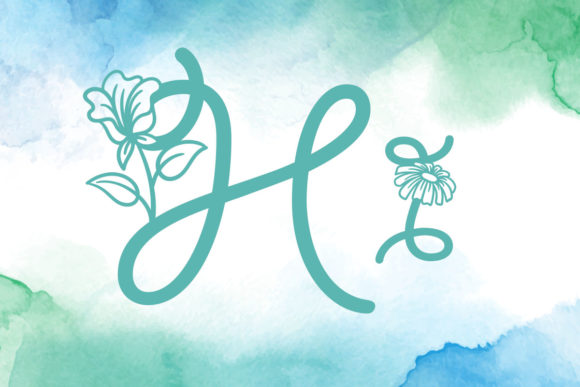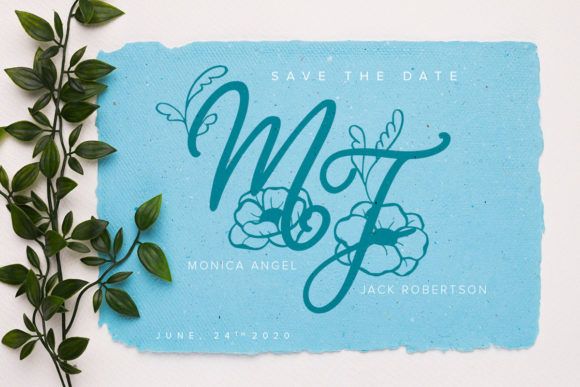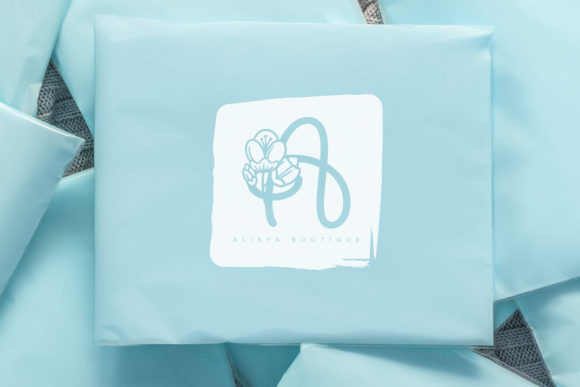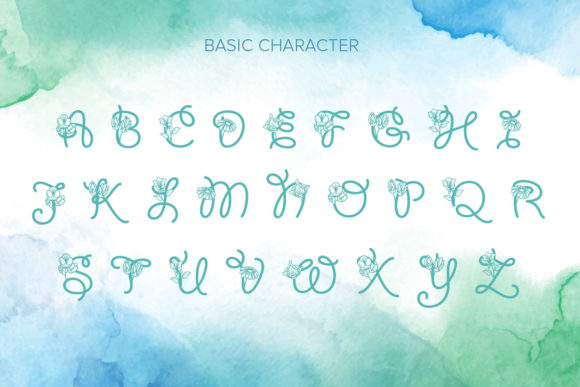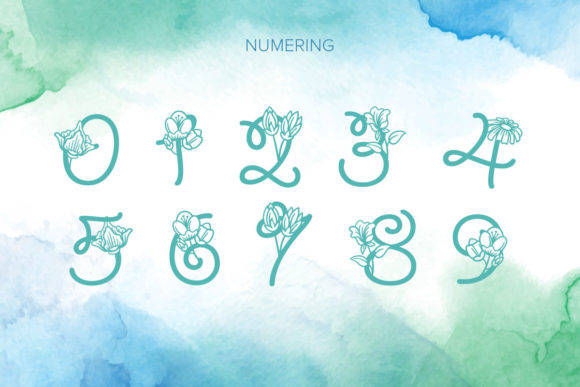
Introduction to Joyful Monogram Font
Have you ever been brainstorming ideas for a creative project, and suddenly, a spark of inspiration hits you? Maybe it was a beautiful wedding invitation you stumbled upon, or a charming social media post that caught your eye. Whatever it was, it left you feeling inspired and eager to create something special. For designers like you, finding the right design resource can make all the difference in bringing your vision to life.
That’s where the Joyful Monogram Font comes in – a lovely decorative font featuring flower monograms that’s sure to add a touch of whimsy and elegance to any project. With its high-quality design and transparent background, this font is perfect for creating gorgeous wedding invitations, beautiful stationery art, eye-catching social media posts, and cute greeting cards.
- High-quality design: The Joyful Monogram Font is designed with precision and care, ensuring a crisp and clear appearance in any creative project.
- Transparent background: This font allows for seamless integration with any background, making it an ideal design resource for various creative projects.
- Customizable: The Joyful Monogram Font can be easily customized to fit the specific needs of your creative project, allowing for endless possibilities and unique designs.
- High-resolution design: The font is designed at a high resolution, ensuring that it remains clear and legible even when scaled up or down.
- Perfect for creative projects: The Joyful Monogram Font is ideal for use in wedding invitations, party decorations, and other creative projects where a touch of personality is desired.
Honest Review: Joyful Monogram Font
I recently stumbled upon the Joyful Monogram Font, and I must say it’s a delightful addition to any design project. The high-quality design and transparent background make it a great resource for creatives.
Here are some things that work well about this font:
- It’s perfect for creating custom monograms, logos, or titles for your creative project.
- The font’s playful and whimsical feel makes it ideal for projects that require a touch of personality.
- It’s highly customizable, allowing you to experiment with different colors, sizes, and layouts.
- The font may not be suitable for formal or professional projects, as its playful nature may not be taken seriously.
- The number of glyphs may be limited, which could be a problem for projects that require a wide range of characters.
Overall, I think the Joyful Monogram Font is a great design resource for creative projects that require a touch of personality and whimsy. While it may not be suitable for all projects, it’s definitely worth checking out if you’re looking for a high-quality, free font that can add some joy to your design work. ⚠️
Use the Joyful Monogram Font in combination with other design elements to create a visually appealing design. Experiment with different colors and sizes to find the perfect look for your project.
The Joyful Monogram Font is perfect for creating custom logos, business cards, and invitations. It’s also great for adding a personal touch to social media graphics, presentations, and documents.